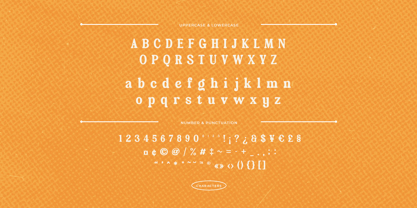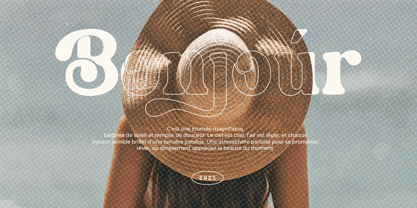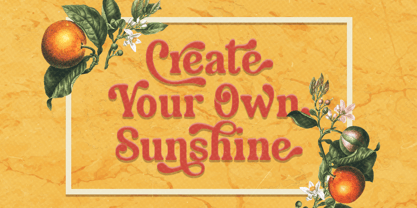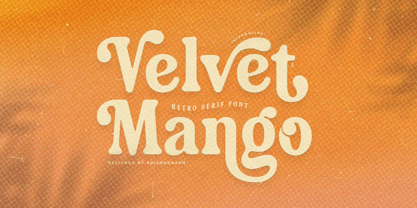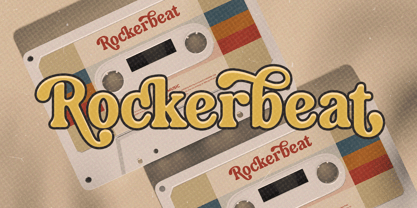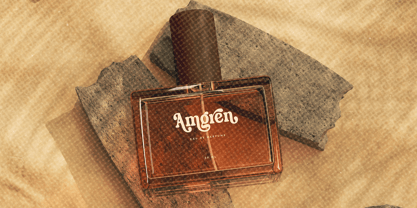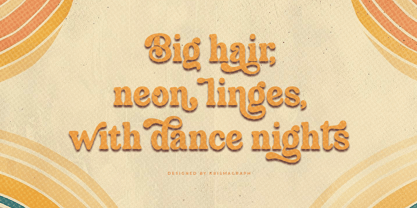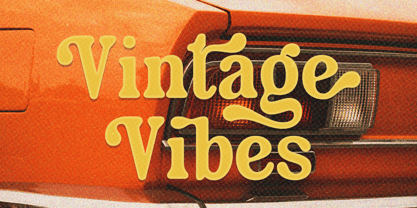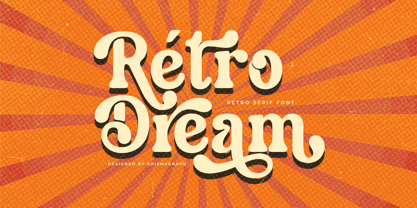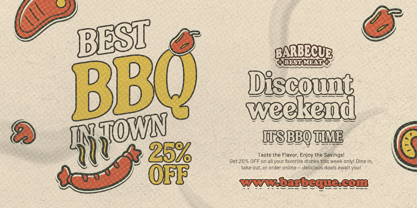
Velvet Mango
Introducing Velvet Mango, a bold and playful retro serif font inspired by the charm of vintage design and nostalgic aesthetics. With its groovy curves, soft terminals, and bouncy letterforms, Velvet Mango is perfect for projects that need a dose of retro flair and warm personality.
Designed to evoke the joy of the '70s and the texture of handmade lettering, Velvet Mango works beautifully for logos, posters, packaging, t-shirt designs, social media graphics, and any creative work that calls for a retro-modern touch.
Its strong serif presence combined with whimsical swashes makes it both highly legible and full of character. Whether you're branding a retro diner or launching a fun product line, Velvet Mango delivers bold style with a nostalgic twist.
Features:
- Uppercase & lowercase retro serif
- Playful alternates and swashy details
- Vintage feel with a modern execution
- Perfect for headlines, logos, and branding
- Supports multilingual characters